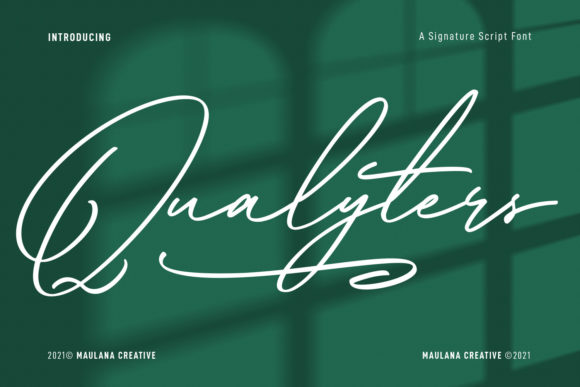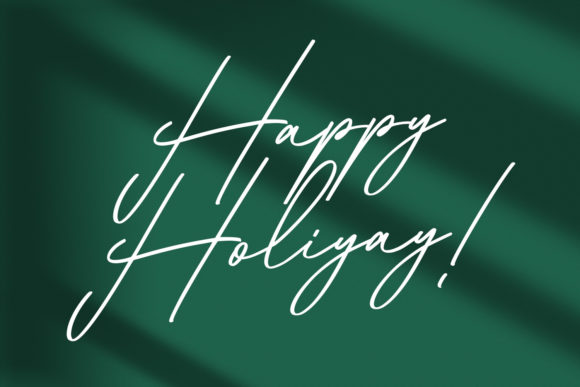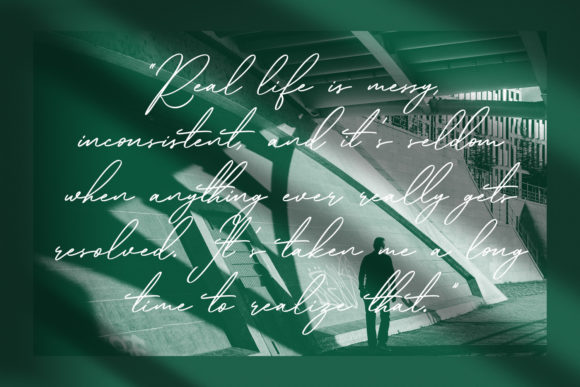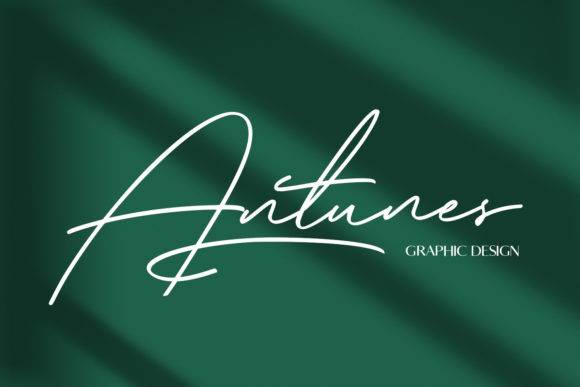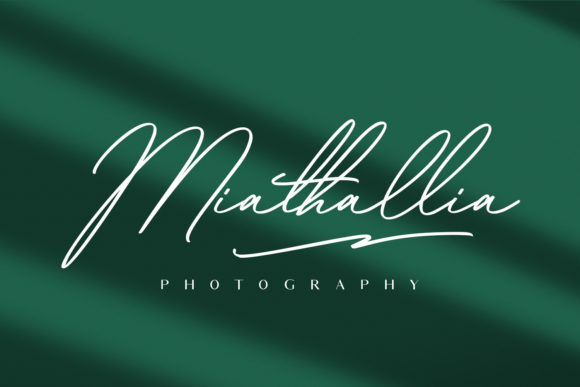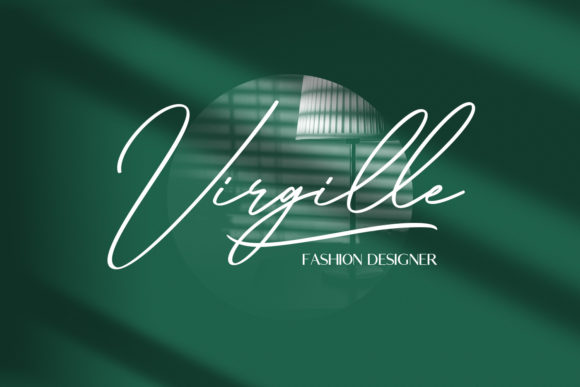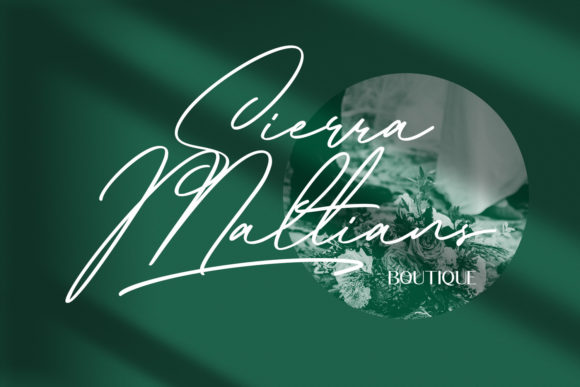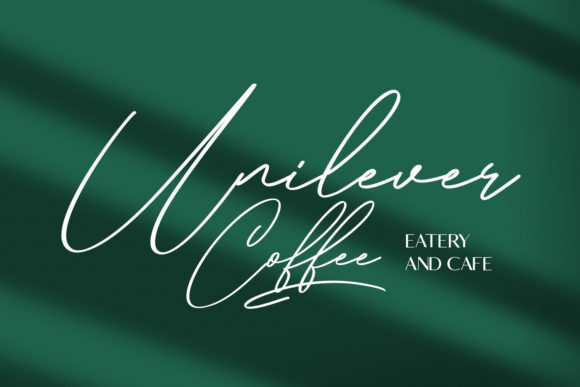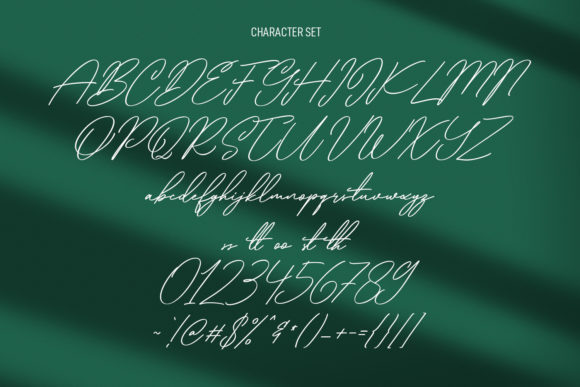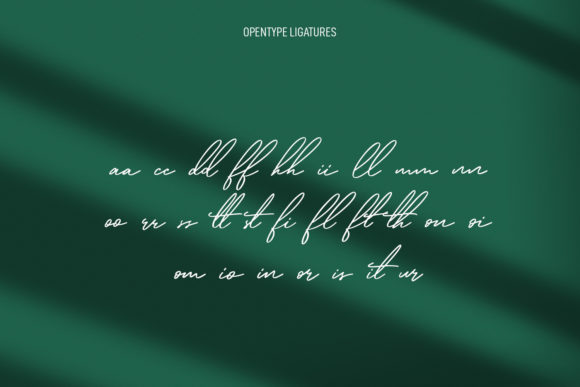
Qualyters Script Font
About Qualyters Script Font
Qualyters is a fancy and unique signature script font featuring a clean mono-line stroke, fun characters, and unique ligatures and swashes. This font is great for logo design, Social media, Movie Titles, Books Titles, short text, even long text.